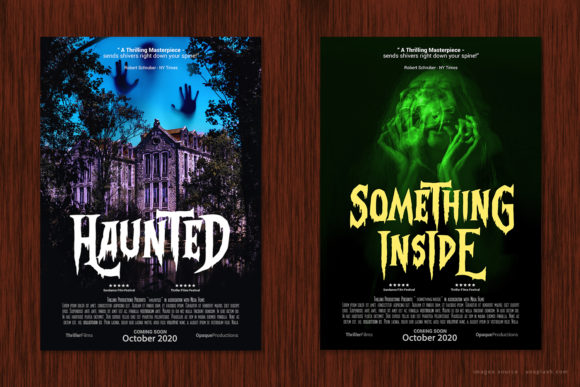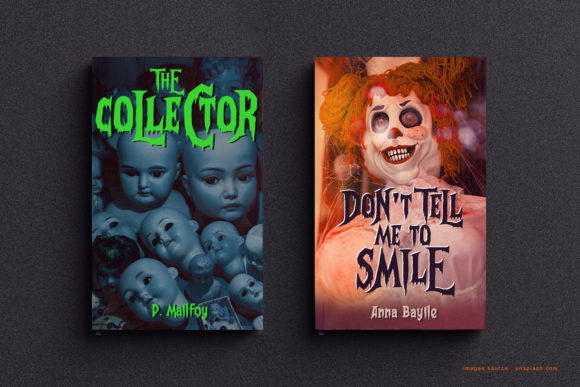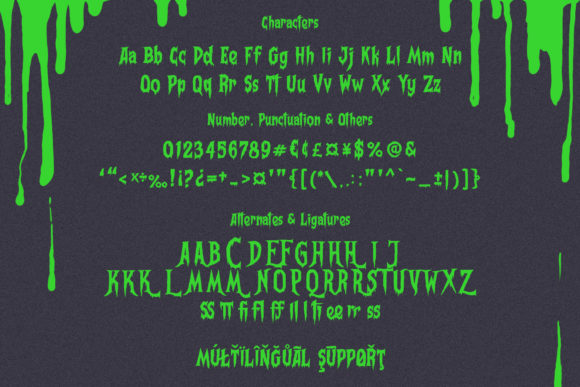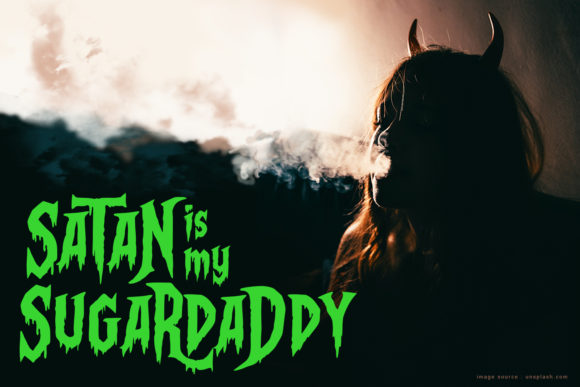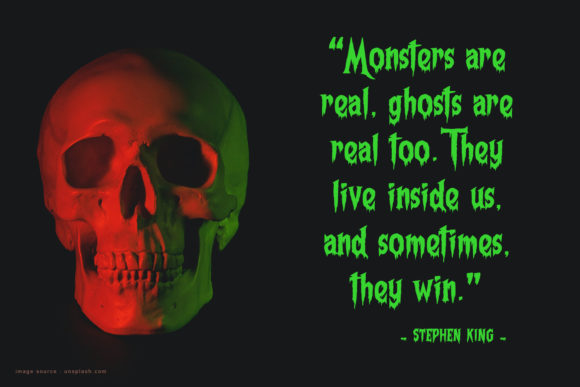
Frightmare Font: Unleash the Horror in Your Designs
Are you a designer or crafter looking to add a touch of horror to your creative projects? Look no further than the Frightmare Font, a display font inspired by the classic horror movies of the past. This font is designed to bring back the nostalgic vibes of the horror movies that have captivated audiences for decades, and it’s the perfect addition to any design that needs a scream.
The Inspiration Behind Frightmare Font
Frightmare Font is a tribute to the iconic horror movies that have become a staple of popular culture. The font’s design is inspired by the bold, blood-curdling titles of classic horror movies, with a unique blend of Gothic and distressed elements. The result is a font that’s both eerie and elegant, perfect for adding a touch of horror to any design.
Key Features of Frightmare Font
- PUA Encoded: Frightmare Font is PUA encoded, which means you can access all of the glyphs and swashes with ease. This makes it easy to use the font in your designs, even if you’re not a professional typographer.
- Display Font: Frightmare Font is a display font, designed to make a statement. It’s perfect for use in titles, headings, and other design elements where you want to grab attention.
- Distressed Texture: The font features a distressed texture that gives it a worn, vintage look. This adds to the horror theme, making it perfect for designs that need a creepy, unsettling feel.
- Glyphs and Swashes: Frightmare Font includes a range of glyphs and swashes, allowing you to customize your designs and add unique touches.
Using Frightmare Font in Your Designs
Frightmare Font is perfect for a range of design projects, from horror-themed posters and flyers to creepy crafts and DIY projects. Here are a few ideas to get you started:
- Horror Movie Posters: Use Frightmare Font to create eye-catching posters for your favorite horror movies. You can also use it to create your own movie posters, complete with creepy titles and taglines.
- Crafts and DIY Projects: Add a touch of horror to your crafts and DIY projects with Frightmare Font. Use it to create spooky signs, creepy cards, and other Halloween-themed crafts.
- Social Media Graphics: Use Frightmare Font to create eye-catching social media graphics, from spooky Facebook posts to creepy Instagram stories.
Tips for Getting the Most Out of Frightmare Font
Here are a few tips for getting the most out of Frightmare Font:
- Experiment with Different Sizes: Frightmare Font is designed to be used in large sizes, but it can also be used in smaller sizes to create a more subtle effect.
- Combine with Other Fonts: Combine Frightmare Font with other fonts to create a unique look. Try pairing it with a clean, sans-serif font for a bold contrast.
- Use the Glyphs and Swashes: Don’t be afraid to experiment with the glyphs and swashes in Frightmare Font. They can add a unique touch to your designs and help you create something truly eye-catching.